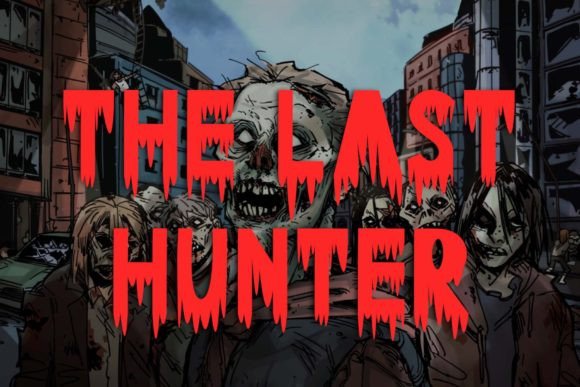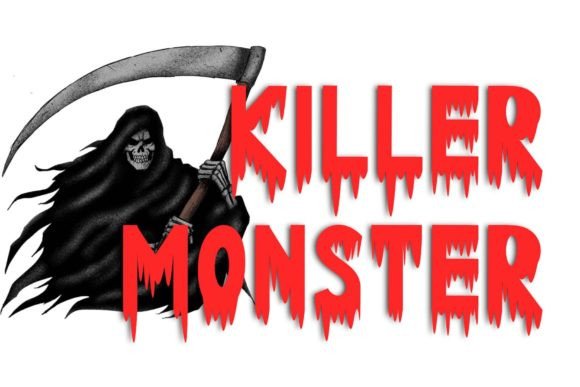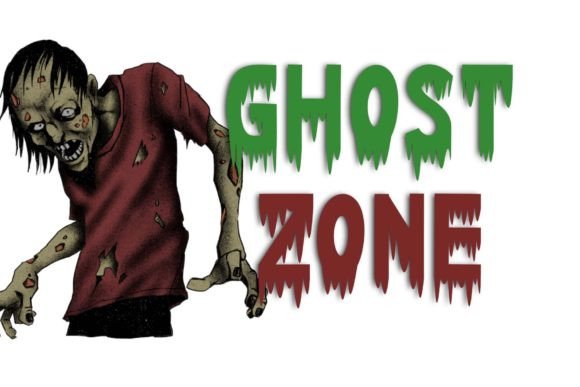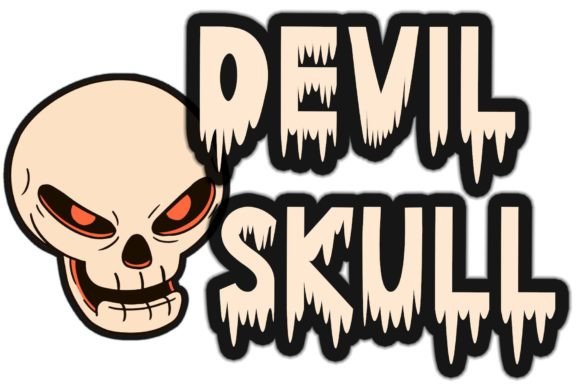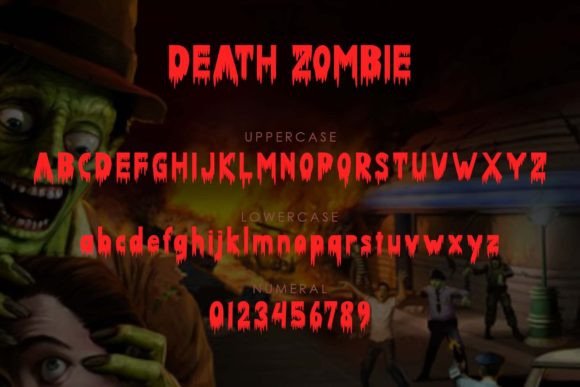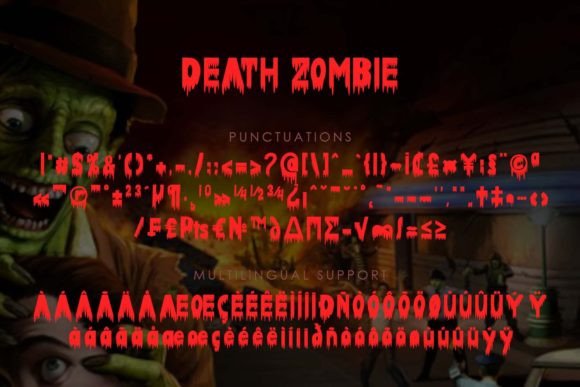
The Undead Beauty of Death Zombie Font: A Designer’s Delight
I still remember the Halloween project that pushed me to the limits of my creativity. I was tasked with designing a spooky poster for a local haunted house event, and I was struggling to find the perfect font to capture the eerie atmosphere. That’s when I stumbled upon the “Death Zombie” font, and it instantly became the star of the show. In this article, I’ll share my experience with this unique horror font, its features, and how to make the most of it in your designs.
A Personal Review: What I Love About Death Zombie Font
Here’s what makes Death Zombie Font a standout in the world of typography:
- ✨ Multilingual support: This font supports a wide range of languages, making it perfect for global design projects.
- ✅ Complete character set: Uppercase, lowercase, numerals, punctuations – it’s all there!
- 🔍 Highly legible: Despite its horror theme, the font remains surprisingly readable, even at smaller sizes.
- 🎃 Perfect for Halloween and horror-themed projects: This one’s a no-brainer, but it’s also great for Christmas, cartoon, and comic book designs.
While Death Zombie Font is an excellent choice, there are a few minor things to keep in mind:
- 🤔 Limited use in formal designs: This font is best suited for creative, playful projects. It might not be the best fit for formal or professional designs.
- ⚠️ Glyph limitations: While the font has a wide range of characters, some users might find the glyph selection a bit limited for certain projects.
According to its creators, Death Zombie Font was inspired by classic horror movies, comic books, and B-movies. The designers aimed to craft a font that’s both terrifying and beautiful, with a unique blend of elegance and gore. Whether or not you believe the legend behind the font, one thing is certain – Death Zombie Font has become a staple in the world of horror typography.
| Does Death Zombie Font support non-English languages? | Yes, Death Zombie Font has multilingual support, making it a great choice for global design projects. |